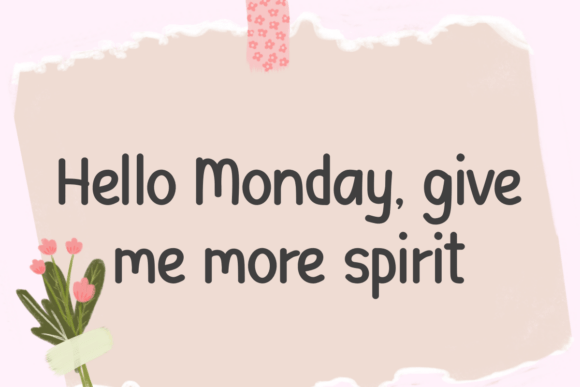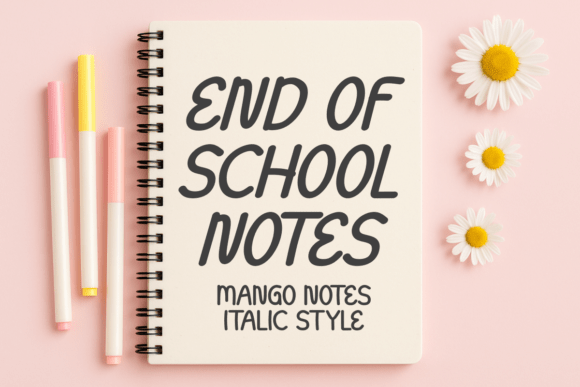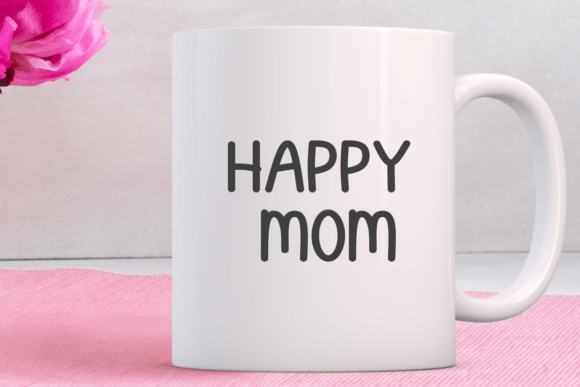
Introduction to Mango Notes Font
Mango Notes is a playful and cute handwritten font, perfect for adding a fun and friendly touch to your creative projects.
This kid-friendly typeface is great for teacher resources, classroom decor, school worksheets, notebooks, labels, and more Whether you’re designing for kids, homeschooling materials, or crafting cheerful printables, Mango Notes brings a light and whimsical vibe that stands out.
Mango Notes Font offers exceptional quality and versatility, making it a valuable addition to your design toolkit. Whether you’re creating for personal projects or commercial use, Mango Notes Font delivers professional results.